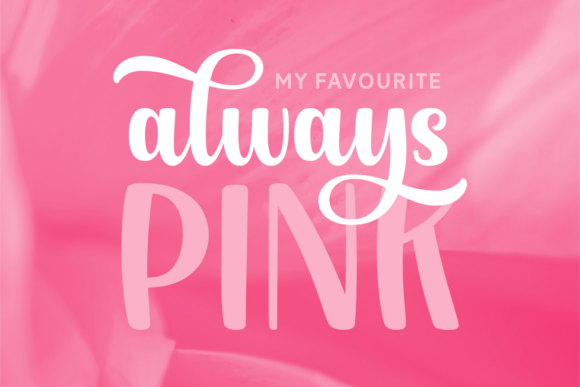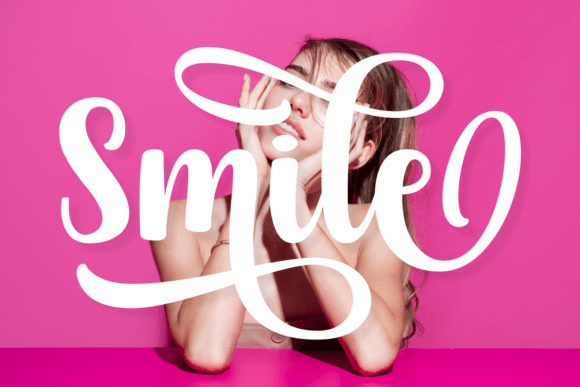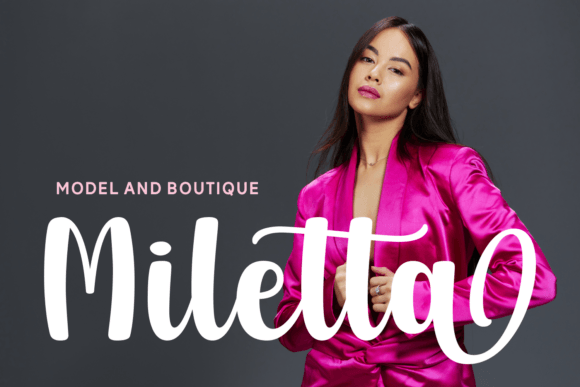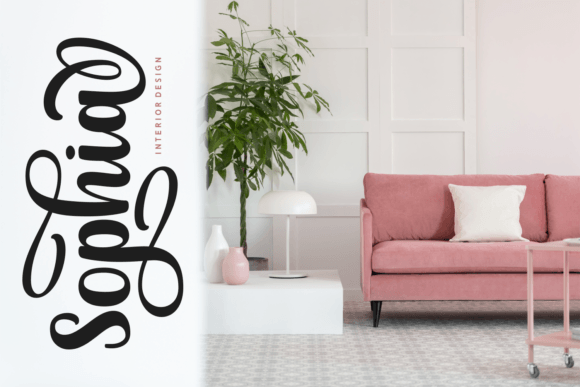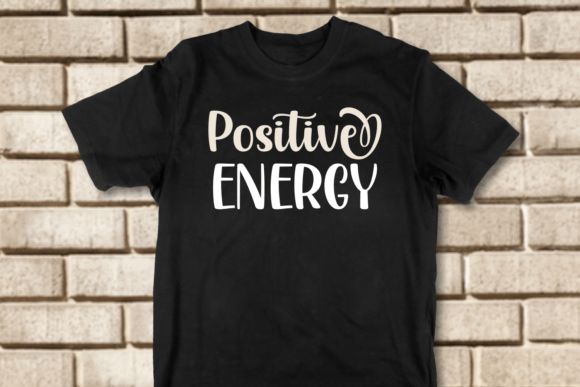
Introduction to Maydia Font
Maydia is a bold script font with a smooth, hand-drawn feel.
Its letters are thick and flowing, giving a warm, artistic look thatโs perfect for logos, headlines, or creative projects that need a touch of personality and elegance .
Key Features of Maydia Font